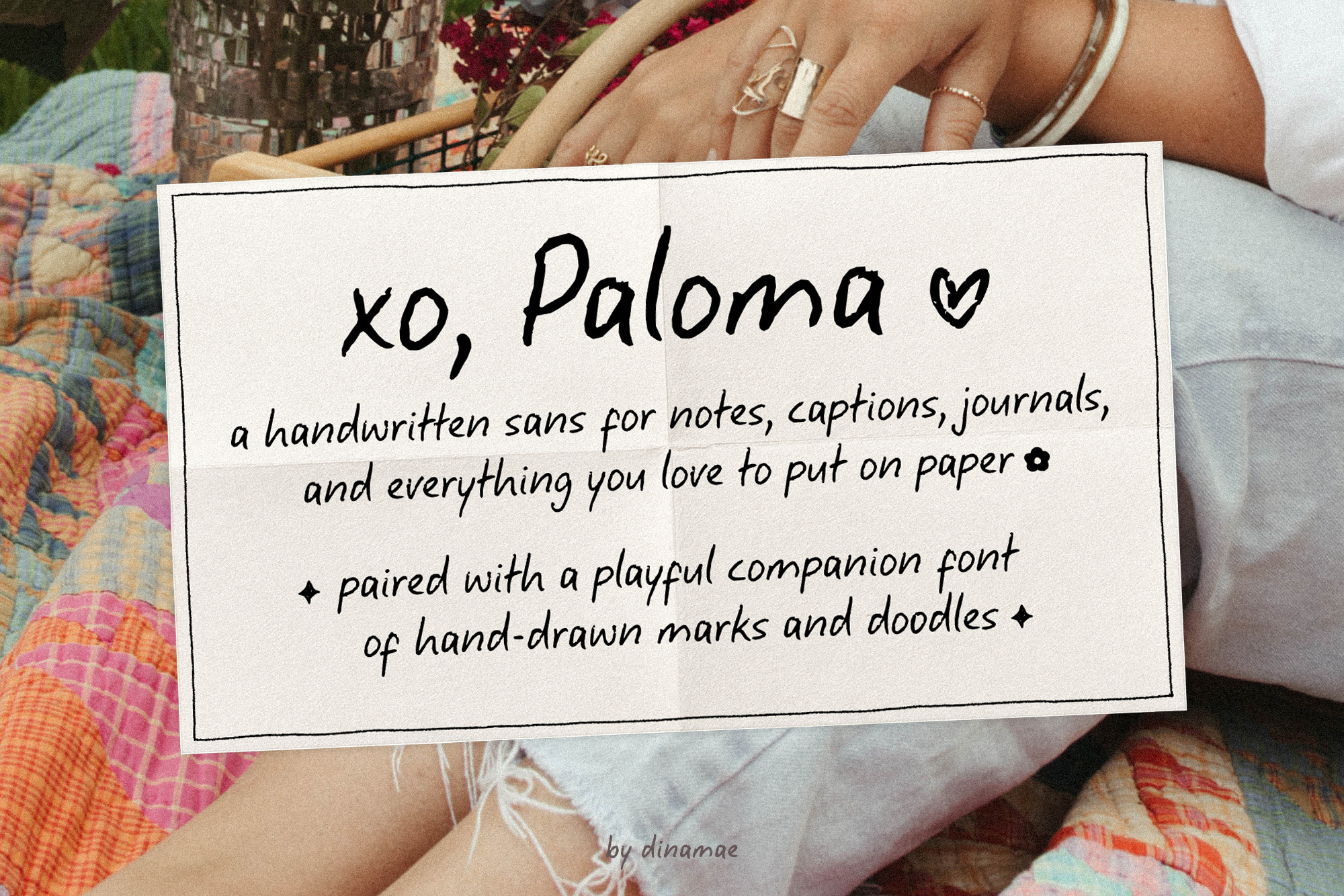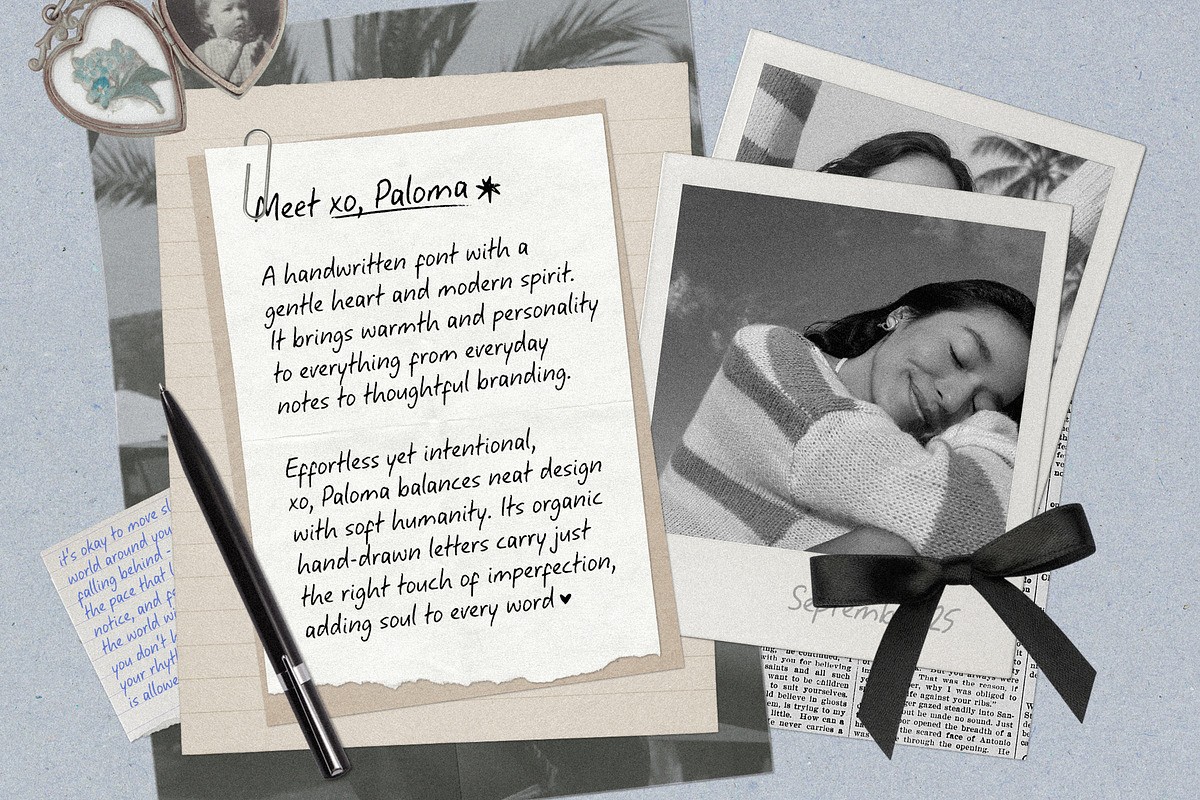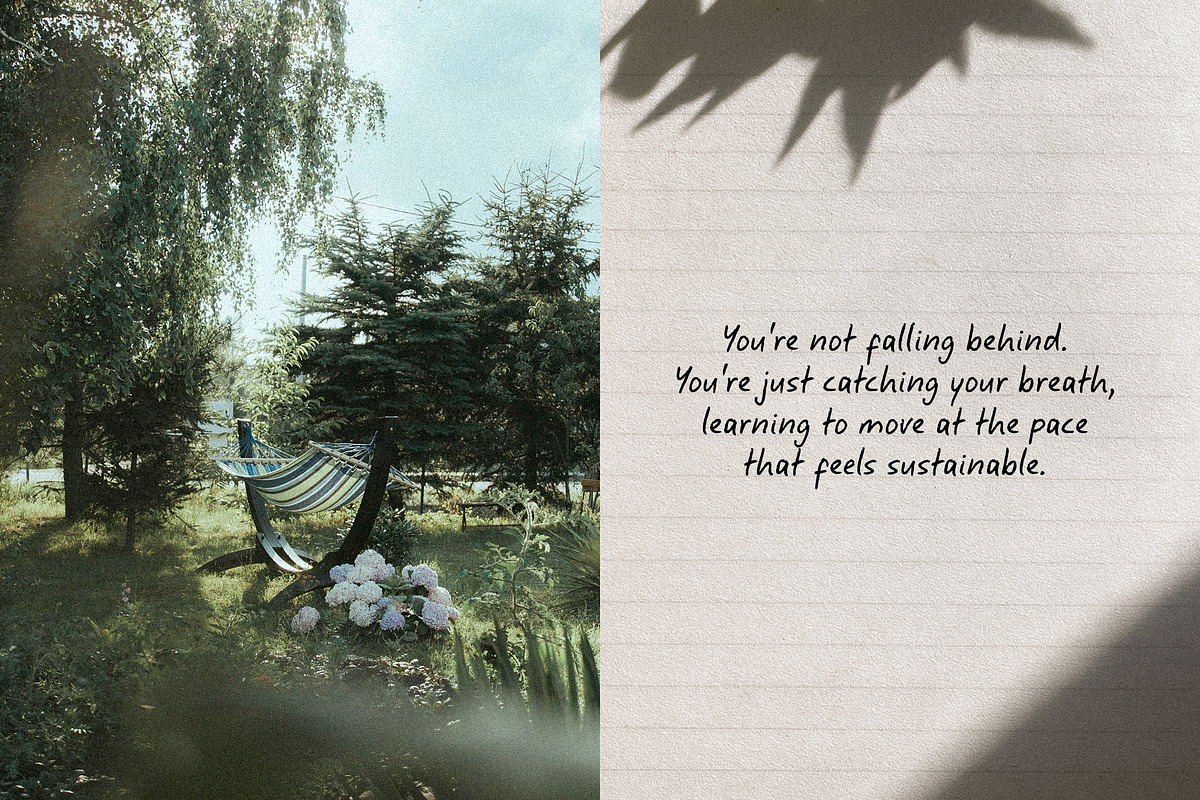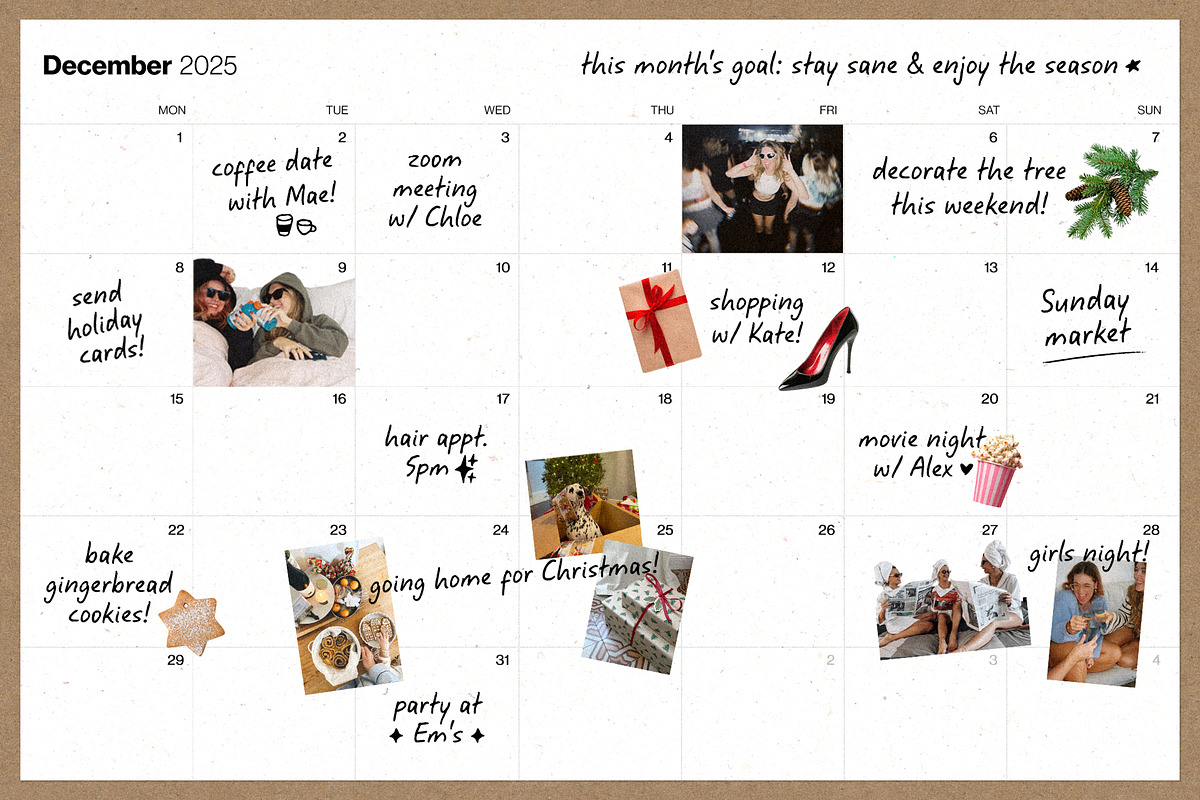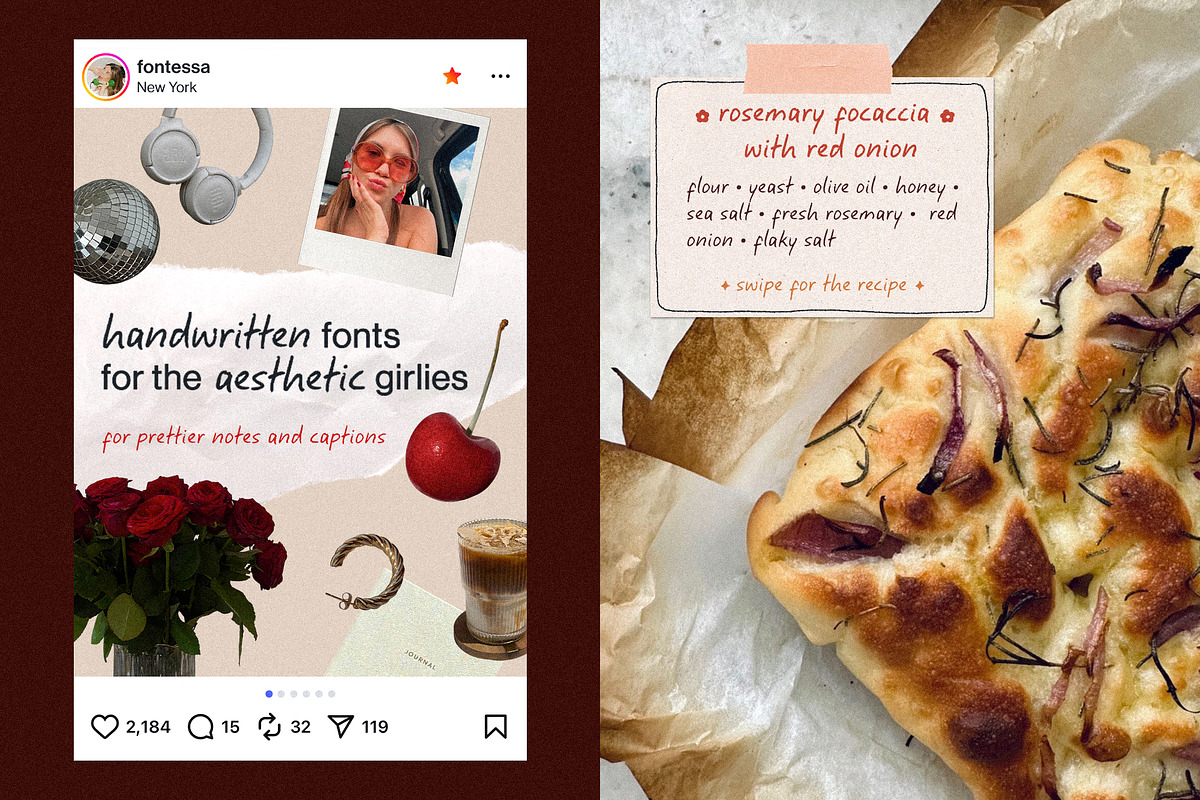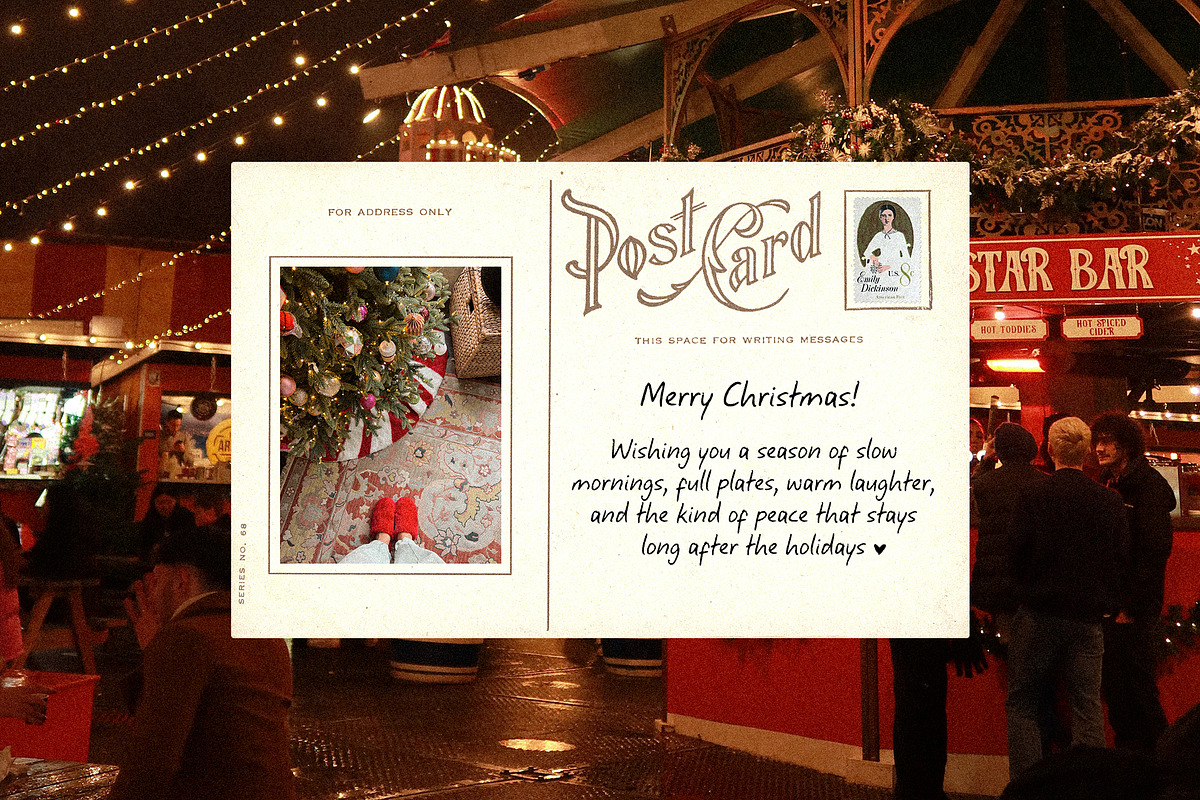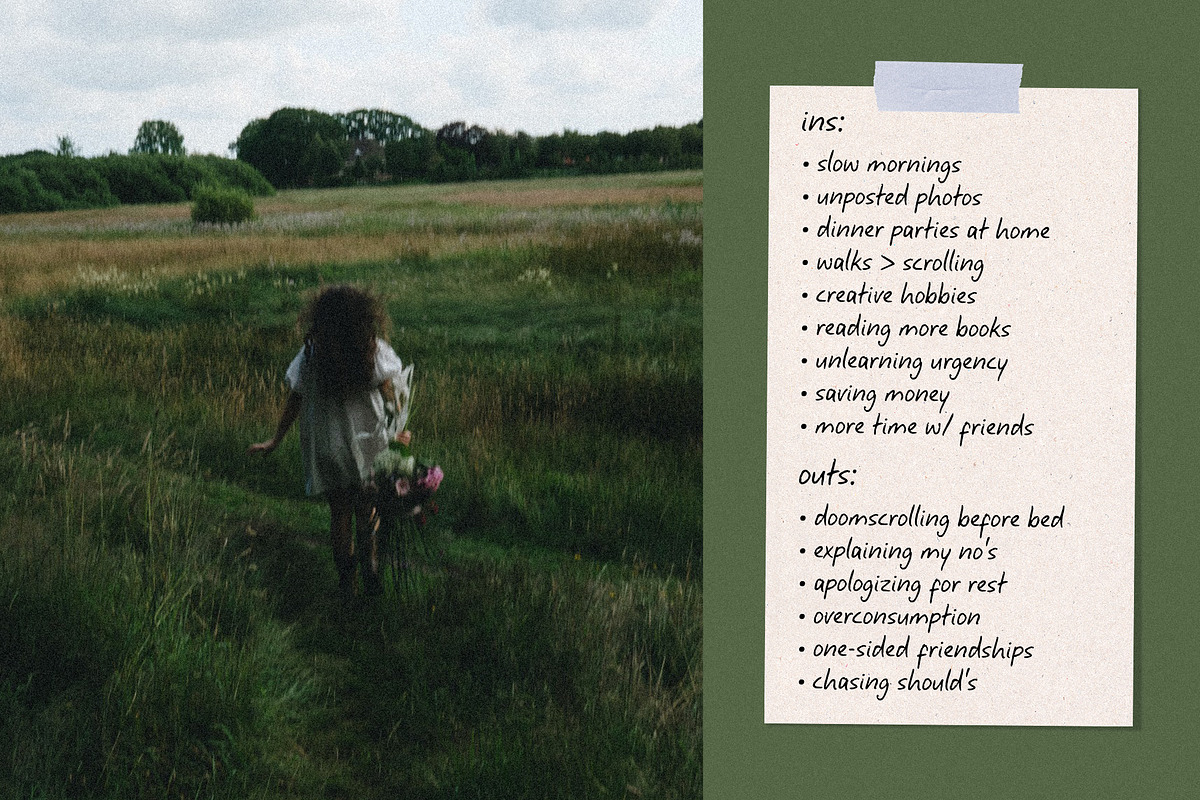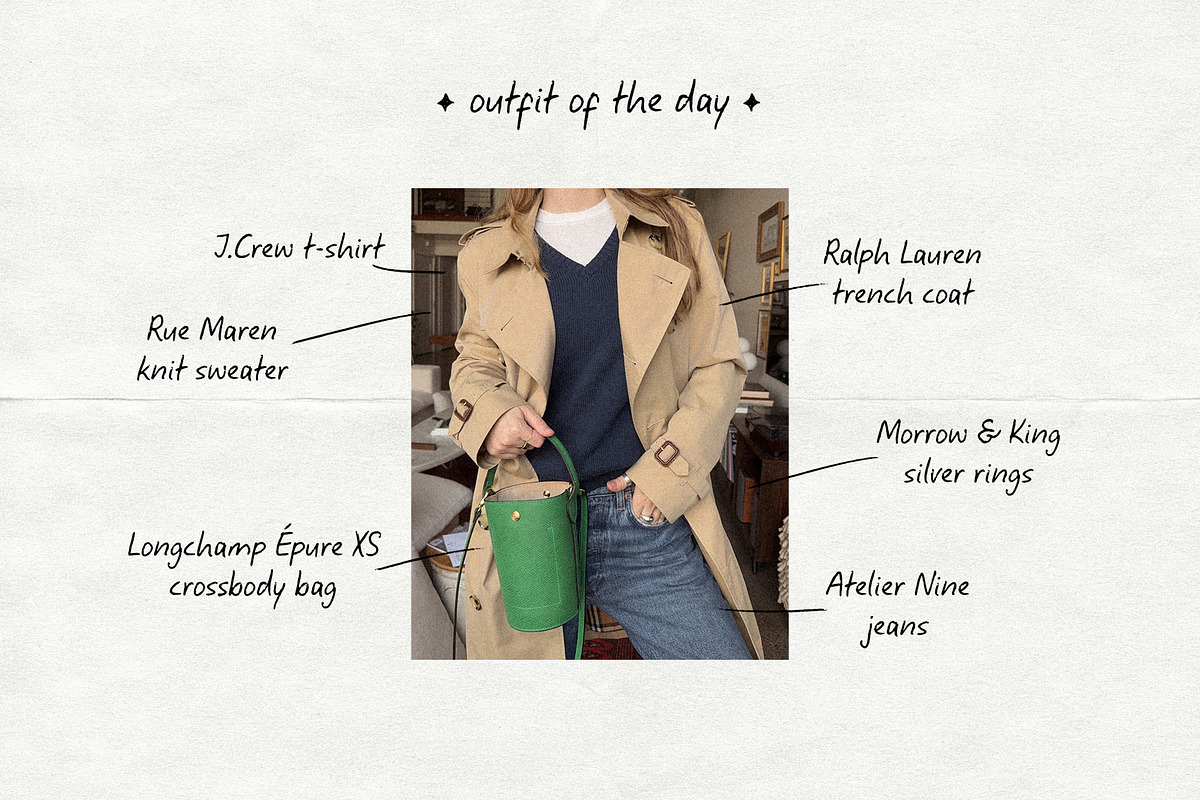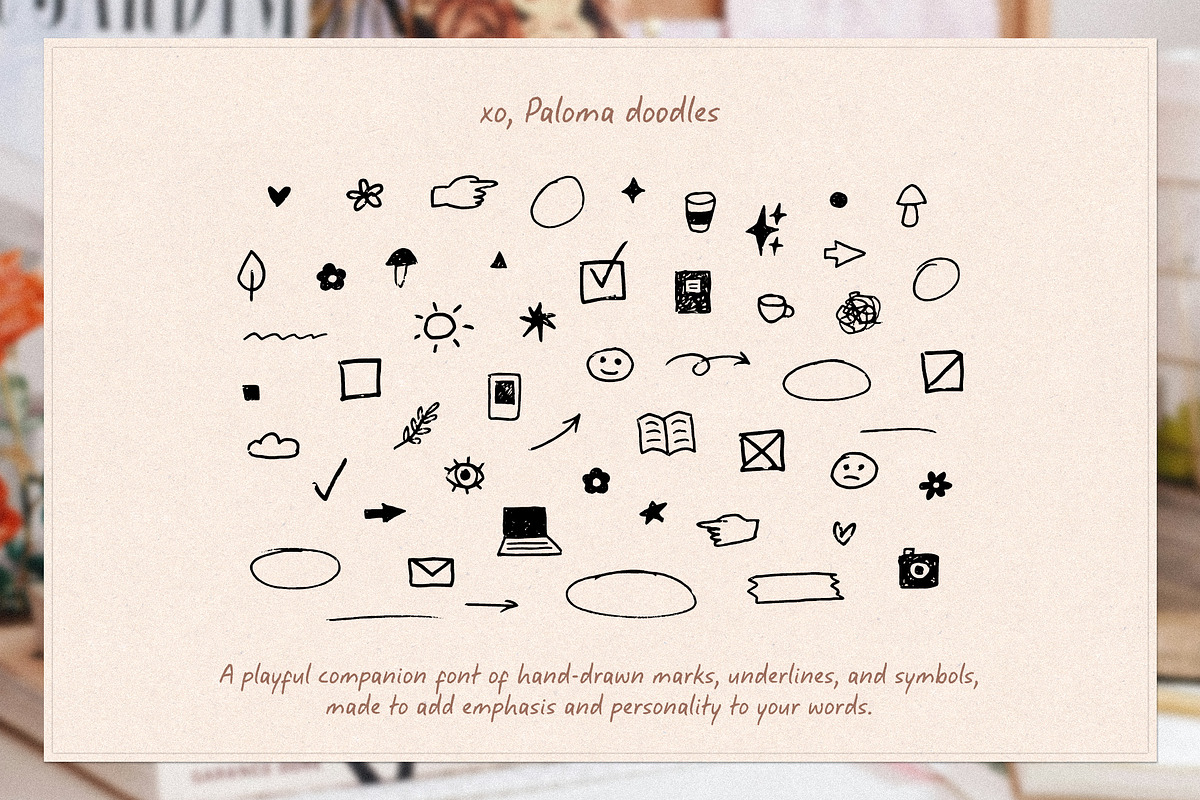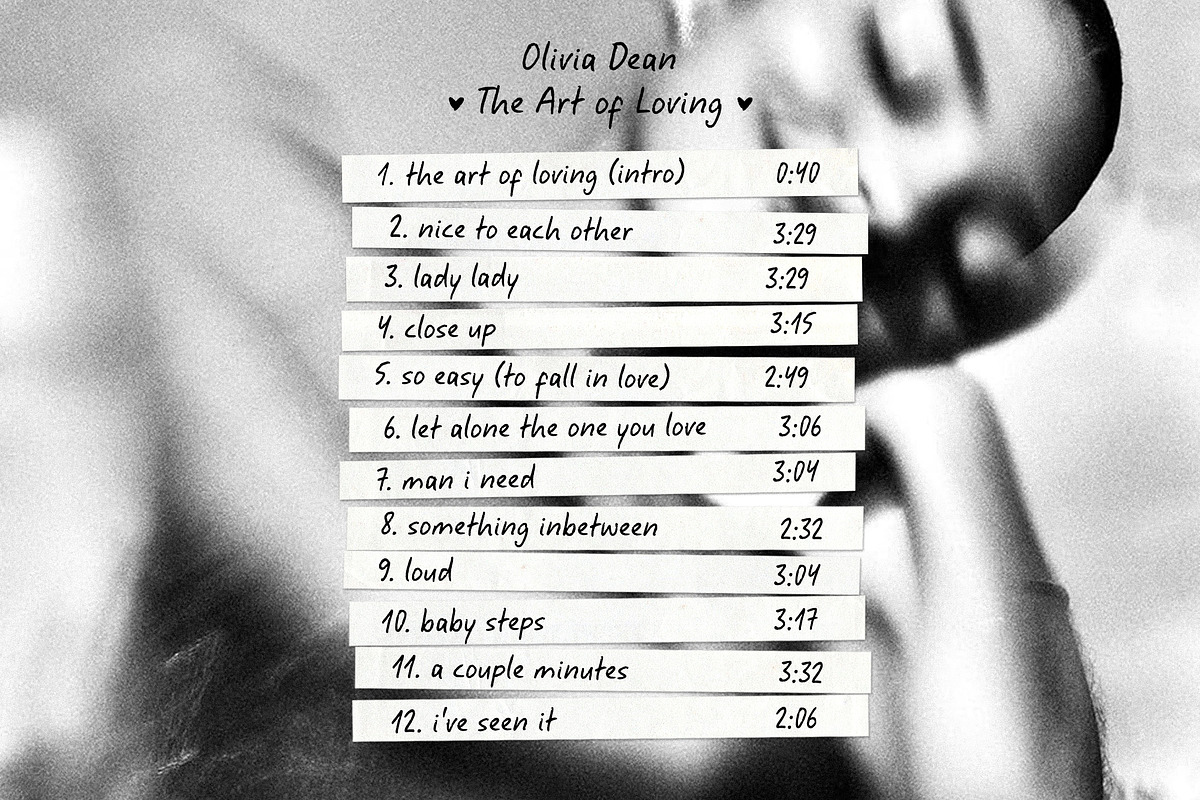
Meet xo, Paloma, a handwritten font with a gentle rhythm and modern edge. It brings a touch of warmth to branding, packaging, social media, and editorial design.
The letterforms are clean but organic, with subtle imperfections that make them approachable and versatile. Alternate characters add variety and rhythm, while the companion doodle font includes underlines, circles, arrows, and other playful doodles for highlighting key words and adding a personal touch.
Uppercase and lowercase letters
Alternate set for variation
Companion doodle font
Numerals, punctuation, and symbols